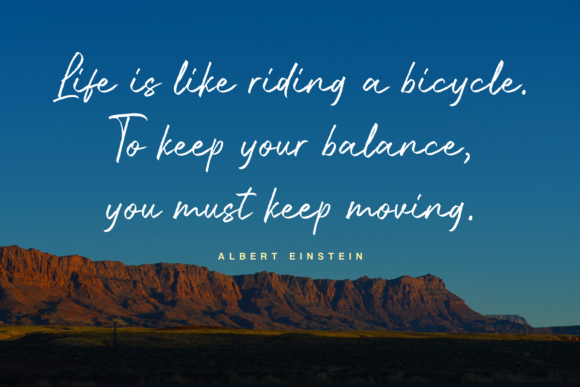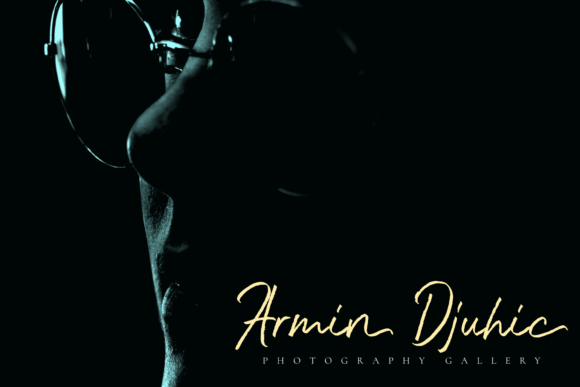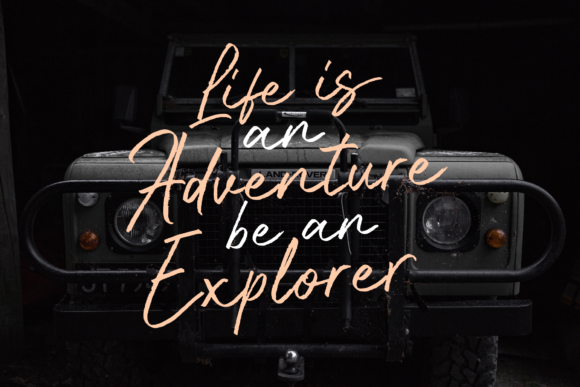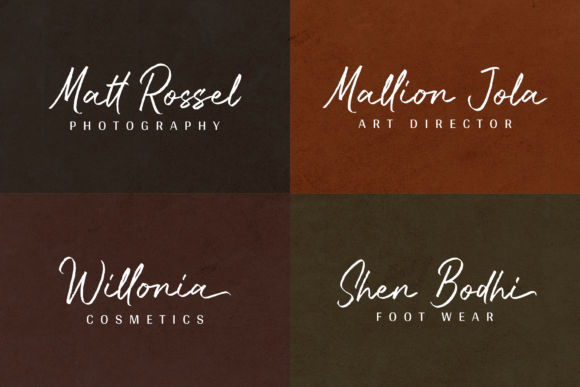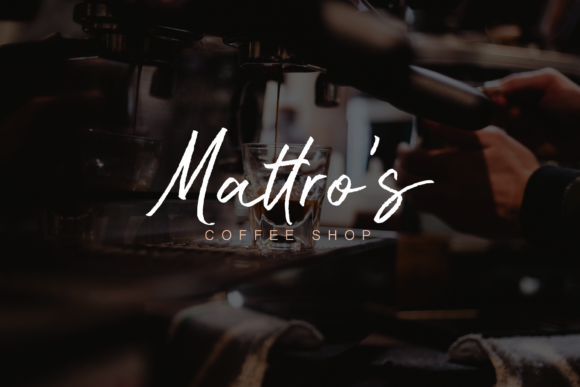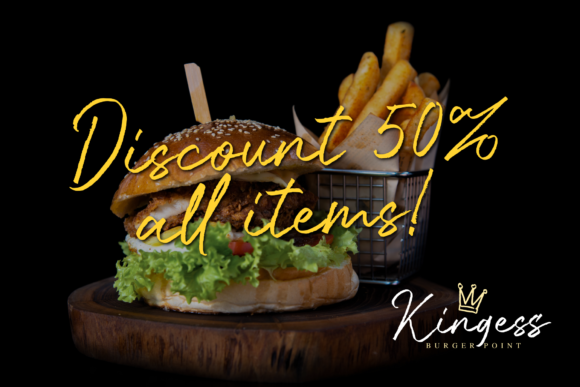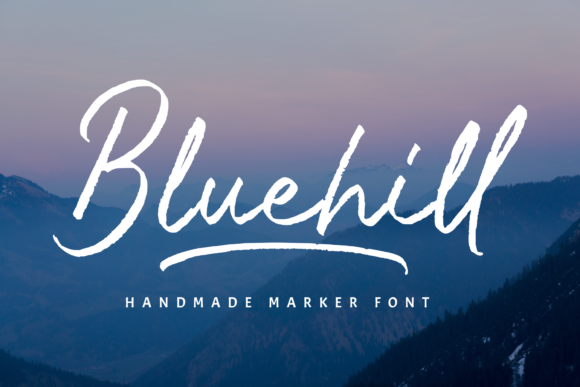
The Bluehill Font: A Charming and Cool Handwritten Font to Elevate Your Designs
I’ll never forget the time I was working on a branding project for a boutique hotel, and I was struggling to find the perfect font to capture the essence of their luxurious yet approachable vibe. That’s when I stumbled upon the Bluehill font, and it instantly became the star of the show. With its bold feel and charming handwritten style, it added a level of sophistication to the design that I hadn’t achieved before. In this article, I’ll share my love for the Bluehill font, its features, and how to make the most of it in your design projects.
An Honest Review of Bluehill Font
What I Love About Bluehill Font
- ✨ Unique and charming handwritten style that stands out from more traditional fonts
- ✅ Bold feel that adds a level of sophistication to any design project
- 🌈 Versatile and can be used for a wide range of design projects, from branding to packaging
- 💻 Easy to read and works well for both headings and body text
While I absolutely love the Bluehill font, there are a few quirks to be aware of:
- 🤔 Limited availability of certain characters, such as ligatures or special glyphs
- ⚠️ May not work well for very small text sizes, as some details may get lost
The Backstory of Bluehill Font
The Bluehill font was designed by a talented type designer who wanted to create a font that would capture the essence of a charming, handwritten style. Inspired by the rolling hills and blue skies of the countryside, the designer crafted a font that’s both elegant and approachable. With its bold feel and unique character, Bluehill font has become a popular choice among designers and crafters.
Q: What is the Bluehill font best suited for?
A: The Bluehill font is best suited for design projects that require a charming, handwritten style with a bold feel, such as branding, packaging, and advertising.
Q: Is Bluehill font suitable for body text?
A: While Bluehill font can be used for body text, it works best for headings and titles. For body text, you may want to choose a font that’s easier to read.